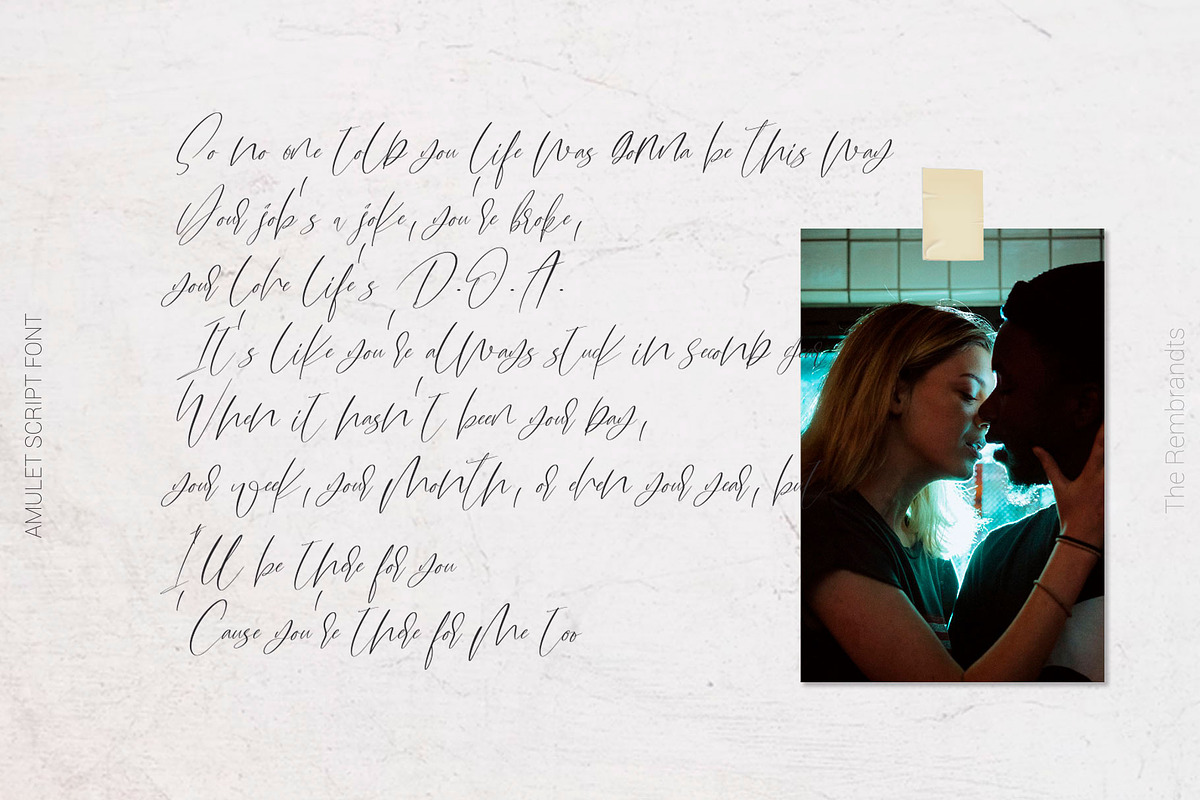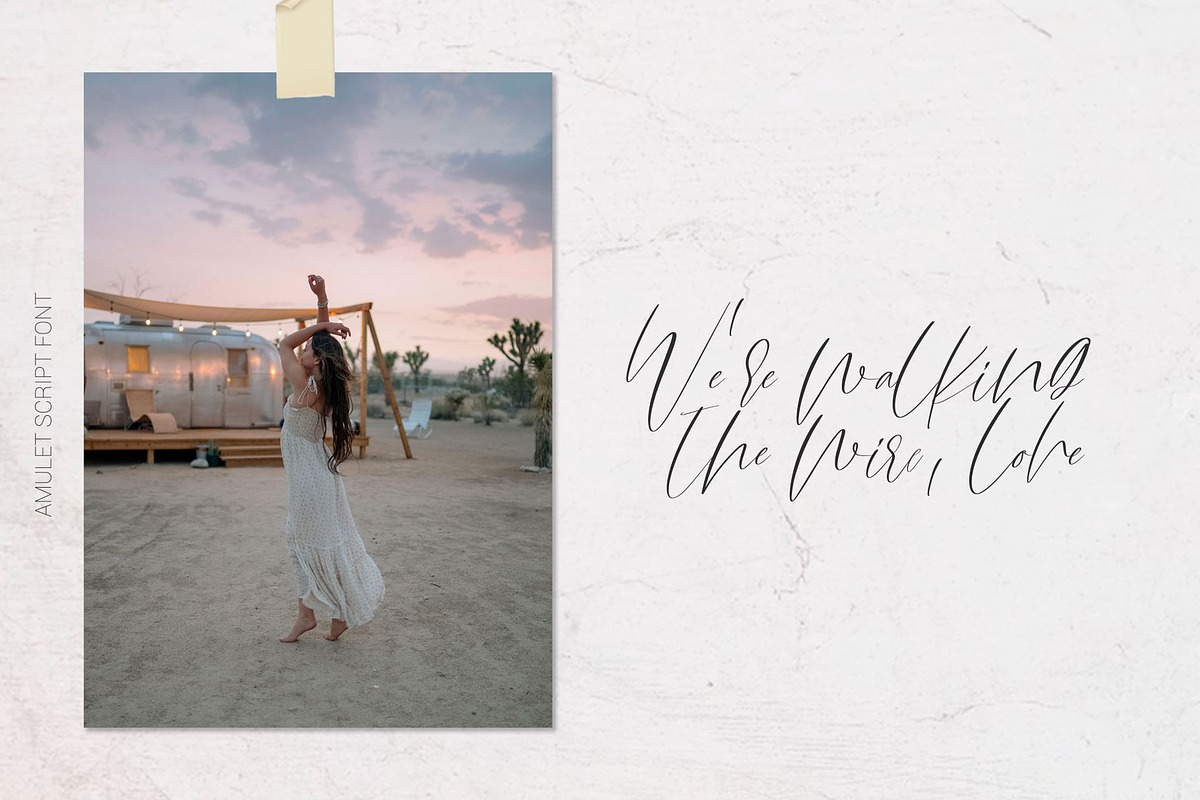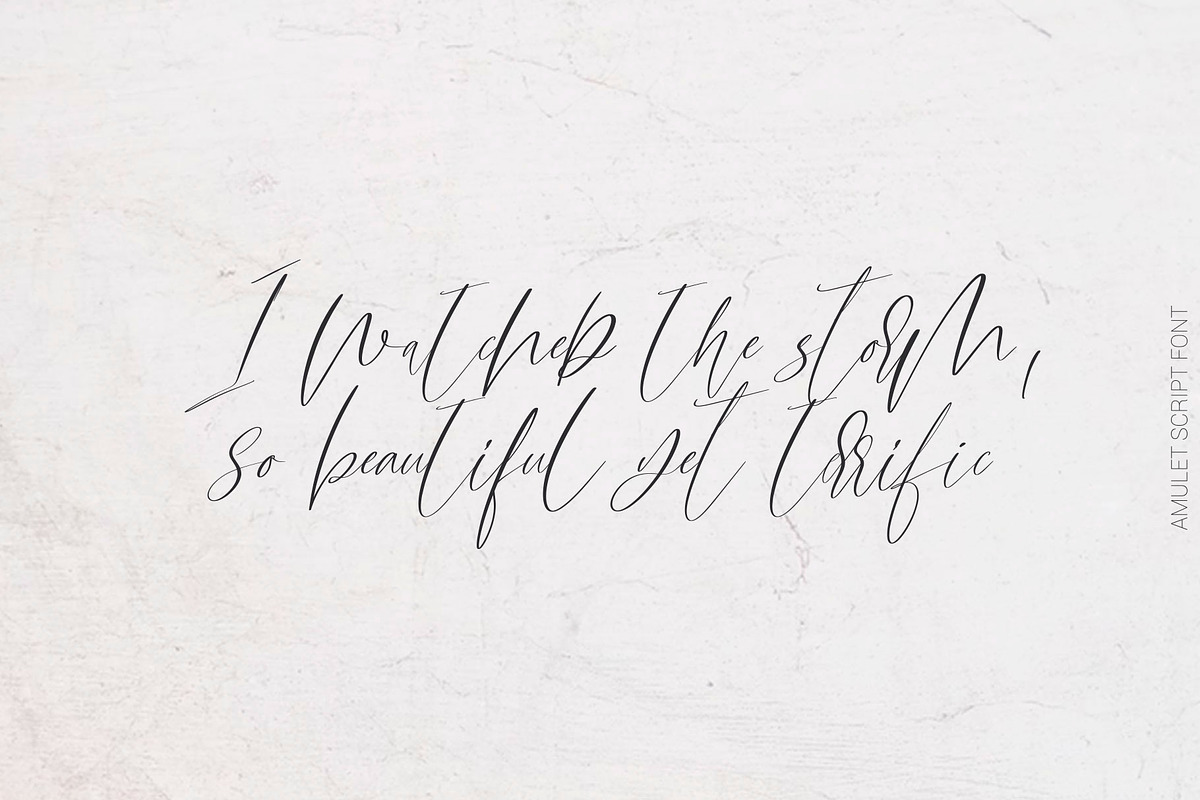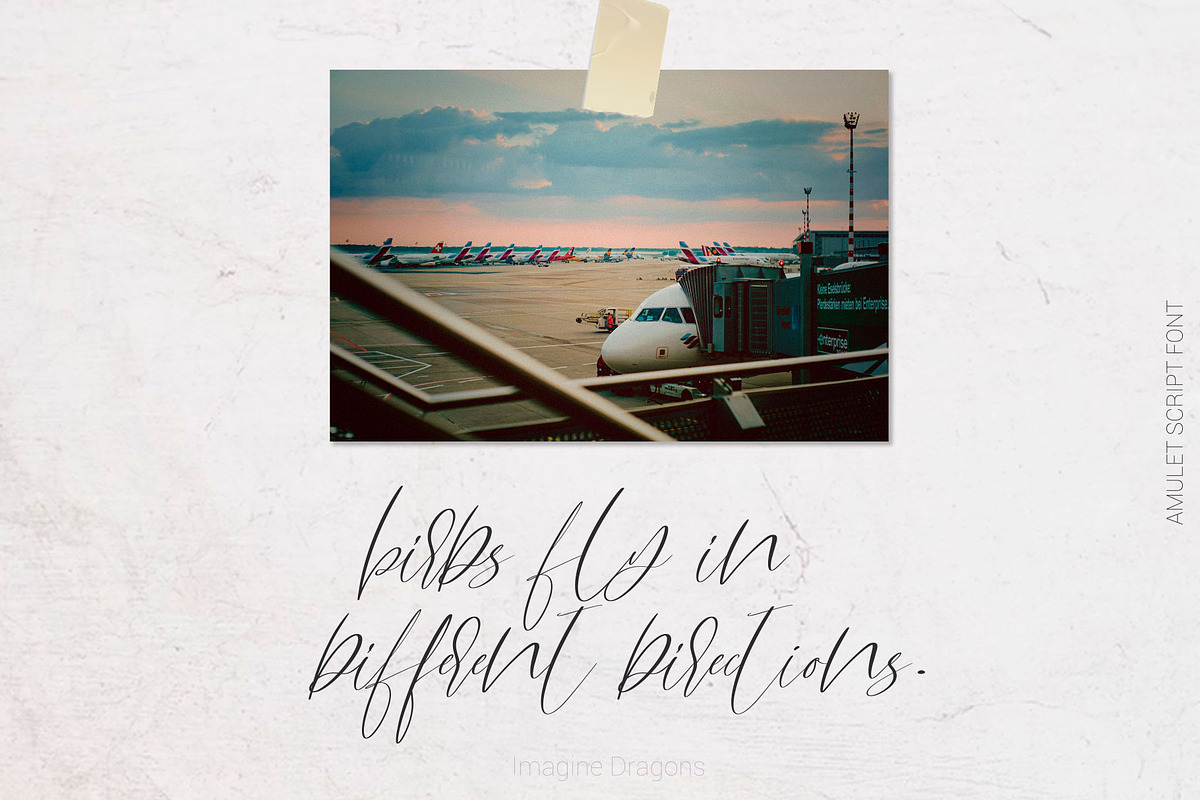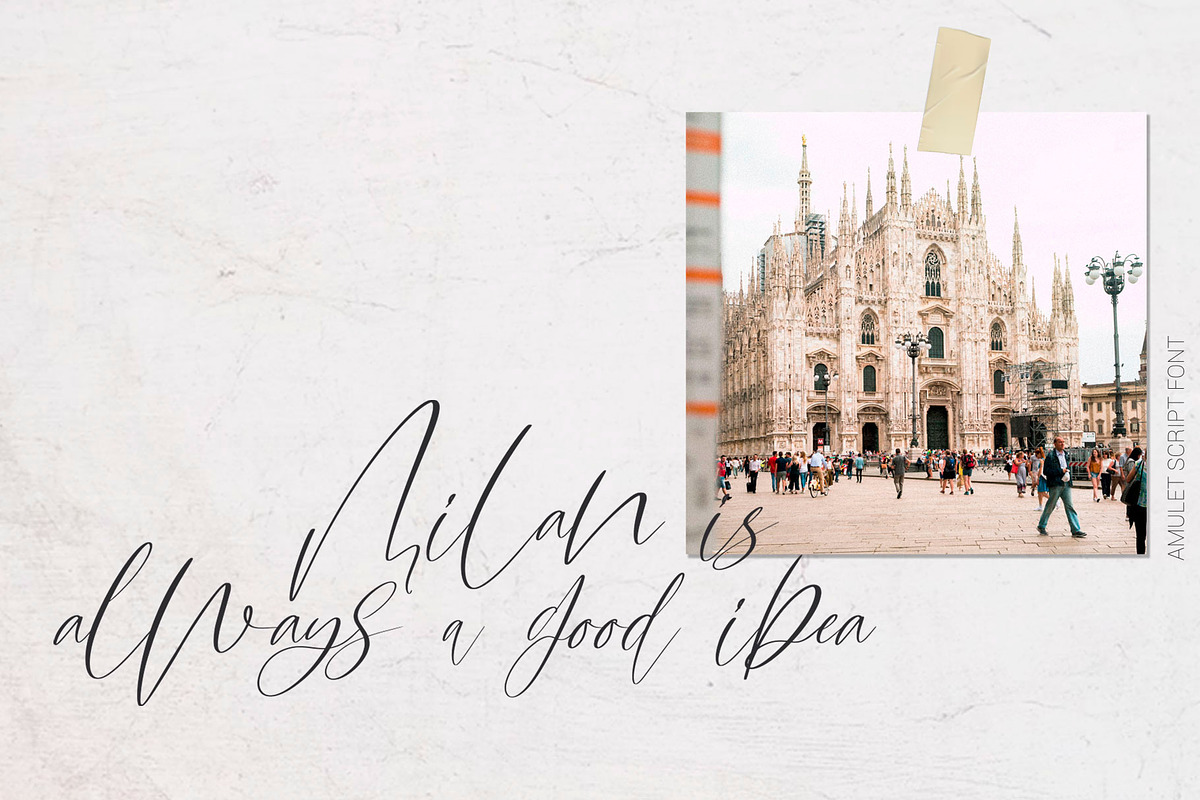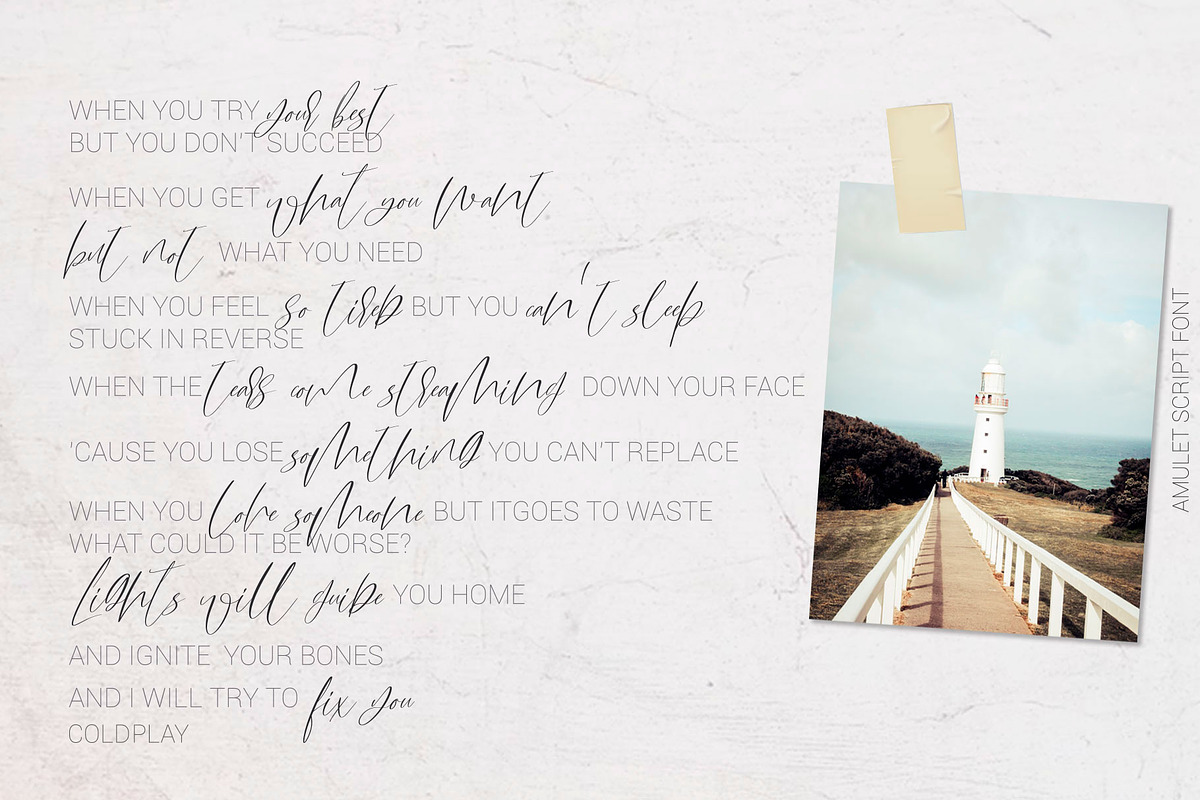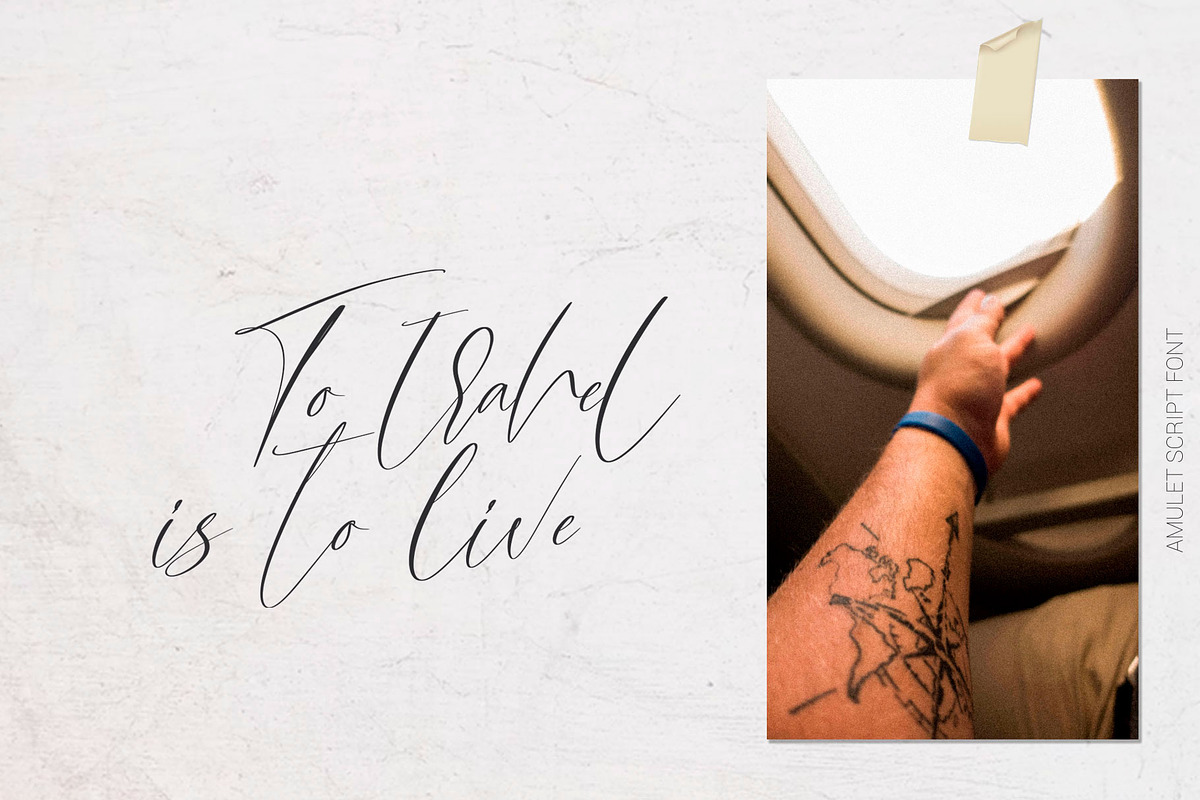
Amulet. Signature Script Font
Amulet. Signature Script Font - it's a casual signature script font with alternates
Why Amulet. Signature Script Font is worth a look
Amulet. Signature Script Font by CallMeStasia fits naturally into Branding, posters, packaging, typography.